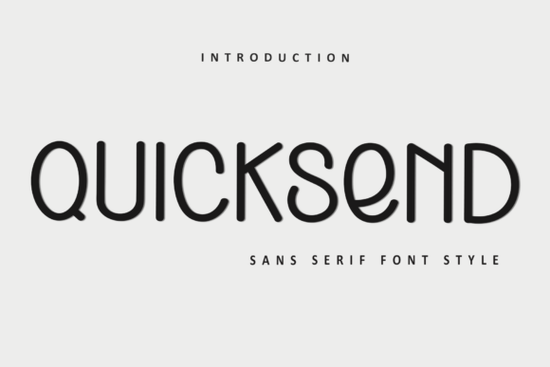
If you’re working on holiday-themed designs whether it’s greeting cards, gift tags, or festive social media graphics you know the right font can make all the difference. That’s where Quicksend Font comes in. It’s a cheerful, decorative typeface that blends nostalgic charm with playful holiday spirit. With its whimsical details and PUA-encoded glyphs, Quicksend lets you easily access special characters and ligatures without jumping through hoops in design software.
Why choose Quicksend for seasonal projects?
Unlike standard sans-serif fonts that prioritize minimalism, Quicksend leans into ornamentation think subtle snowflake accents, rounded terminals, and letterforms that feel handcrafted. This makes it ideal for projects that call for warmth and personality. Whether you're a small business owner creating custom holiday packaging or a crafter designing printable ornaments, this font adds instant cheer without overwhelming your layout.
How does Quicksend compare to other decorative fonts?
While Quicksend shines during the holidays, you might also explore complementary styles for year-round branding. For example, if you like clean lines but still want character, consider pairing Quicksend with a modern sans-serif like Terra Naro for body text or subheadings. Similarly, Kloe offers soft curves that balance Quicksend’s exuberance, while Fattura brings geometric precision for contrast.
If your project needs more edge say, for a winter sale poster with bold headlines fonts like Crusher or Sublime can provide that punch while keeping your overall aesthetic cohesive.
Who is Quicksend best suited for?
- Print-on-demand sellers creating mugs, tote bags, or holiday apparel with seasonal slogans.
- Paper crafters designing DIY card kits or printable gift labels.
- Small retailers producing in-store signage or digital ads for December promotions.
- Graphic designers building themed assets for clients who want a friendly, non-corporate holiday look.
It’s worth noting that Quicksend works best as a display font meaning it’s perfect for headlines, short phrases, or decorative elements. Avoid using it for long paragraphs, as its detailed strokes can reduce readability at smaller sizes.
Tips for using Quicksend effectively
Start by testing your design at actual print or screen size. A font that looks charming at 72pt might become muddy at 12pt. Also, give your letters room to breathe: generous spacing enhances the whimsical feel without crowding the decorative details.
Pair it with neutral colors like cream, deep green, or burgundy to let the typography stand out. And remember less is often more. One well-placed “Happy Holidays” in Quicksend can carry more impact than filling every corner of your design with it.
With its joyful personality and easy-to-use extras, Quicksend Font is a reliable choice for anyone wanting to infuse their holiday creations with genuine warmth without sacrificing professionalism.